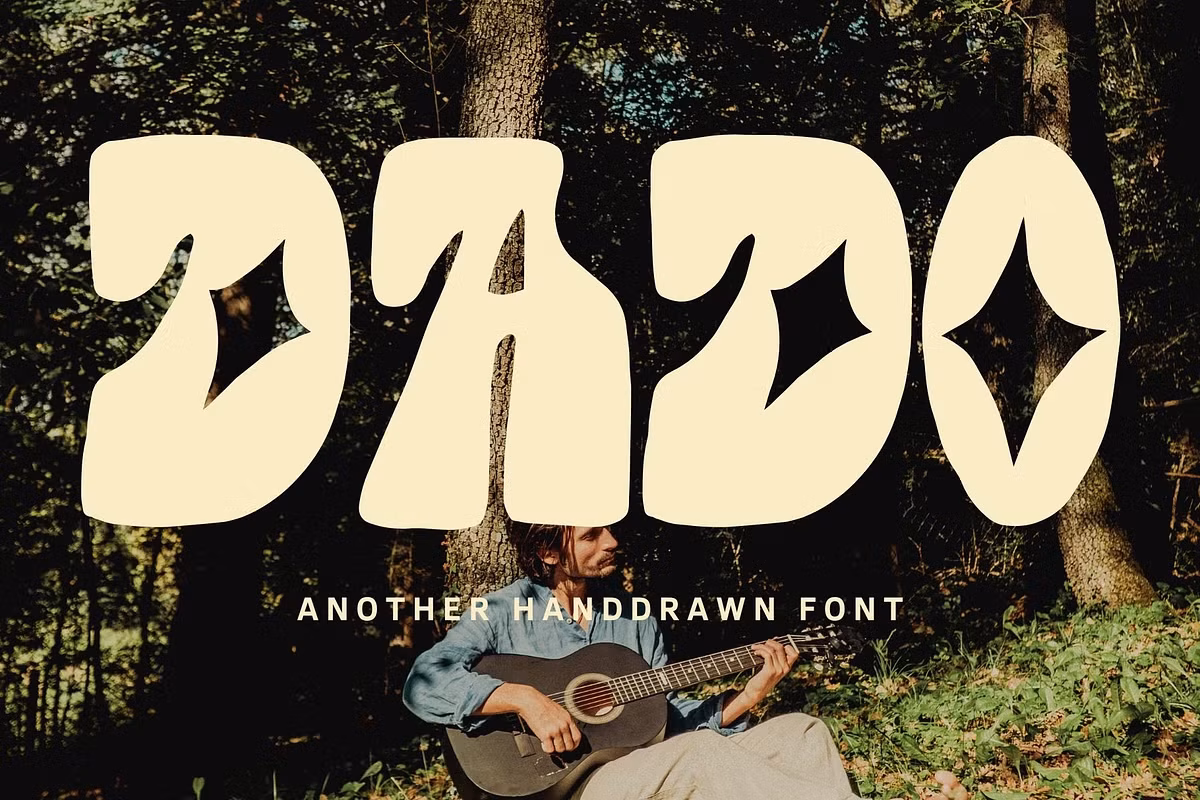
Dado Handdrawn Font Free Download is a playful and unique typeface that brings a creative, hand-drawn touch to your designs. Featuring organic, imperfect strokes, this font is perfect for adding personality and charm to logos, branding, invitations, social media graphics, and more. Its casual, artistic design makes it ideal for projects that require a fun, approachable vibe. Whether you're designing for a creative brand, crafting a personalized event invitation, or working on a fun marketing campaign, Dado Handdrawn Font Free Download lets you explore its quirky style in personal projects before purchasing a commercial license. Add authenticity and flair to your designs with this beautifully crafted hand-drawn font.